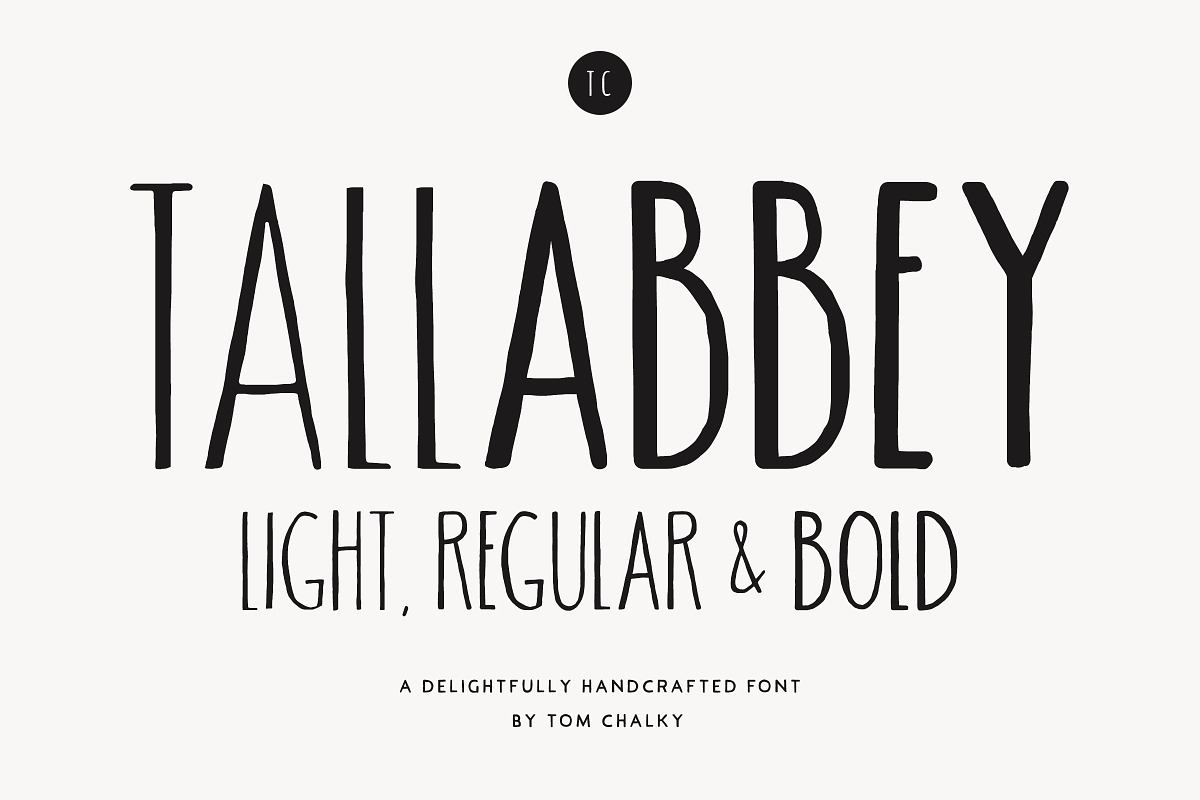
Tall Abbey Sans - Handwritten Font Free Download is a unique handwritten typeface with a bold and modern twist. Featuring tall, elegant letterforms and a slightly uneven baseline, this font adds character and personality to your designs. Perfect for branding, invitations, social media posts, and logos, this font captures a casual yet sophisticated feel.
Using the Tall Abbey Sans - Handwritten Font Free Download brings a relaxed, personal touch to your typography while maintaining a clean, contemporary look. Whether you’re working on a custom logo, crafting a warm invitation, or creating engaging content for your brand, this font enhances your design with its stylish, handwritten charm.